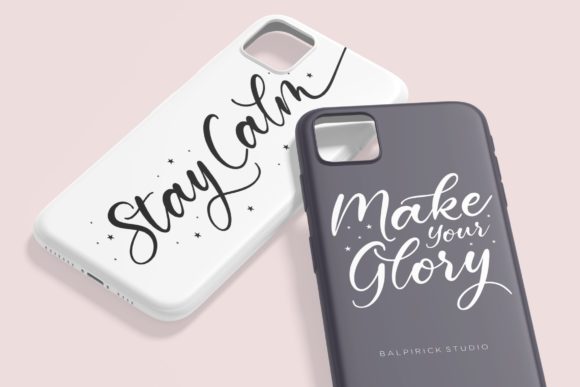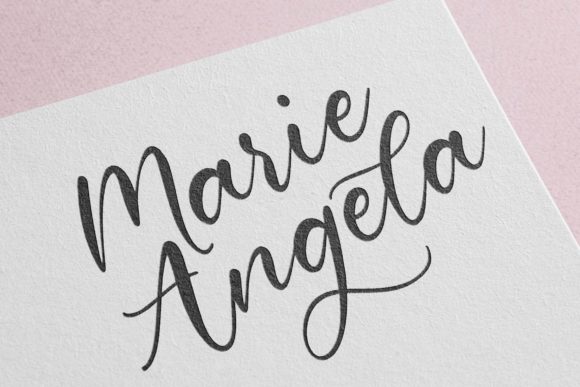
About Gelyti Font
Gelyti is a beautiful and refined handwritten font that exudes elegance and delicacy. With its sweet and delicate swashes, this font offers a unique and original look that is perfect for a wide range of crafty design ideas.
The dainty and graceful characters of Gelyti make it a perfect choice for creating elegant letterheads, adding a touch of sophistication to your business or personal correspondence. Its delicate swashes add a sense of charm and beauty, making your letterheads truly stand out.
For titles and headings, Gelyti brings a sense of grace and style to your designs. Whether it’s for magazine titles, blog headers, or website banners, this font’s elegance and originality elevate the overall aesthetics of your titles, capturing the attention of your audience.
When used in stationery design, Gelyti adds a special touch of refinement and creativity. Whether it’s for wedding invitations, greeting cards, or thank you notes, the delicate and unique look of this font enhances the beauty of your stationery and leaves a lasting impression on recipients.
In conclusion, Gelyti is an elegant and dainty handwritten font with sweet and delicate swashes that add a touch of refinement to your crafty design ideas. From letterheads and titles to stationery, this font’s original look and PUA encoding make it a versatile choice for various projects. Embrace the beauty and uniqueness of Gelyti to create designs that exude sophistication and charm, leaving a lasting impression on your audience.